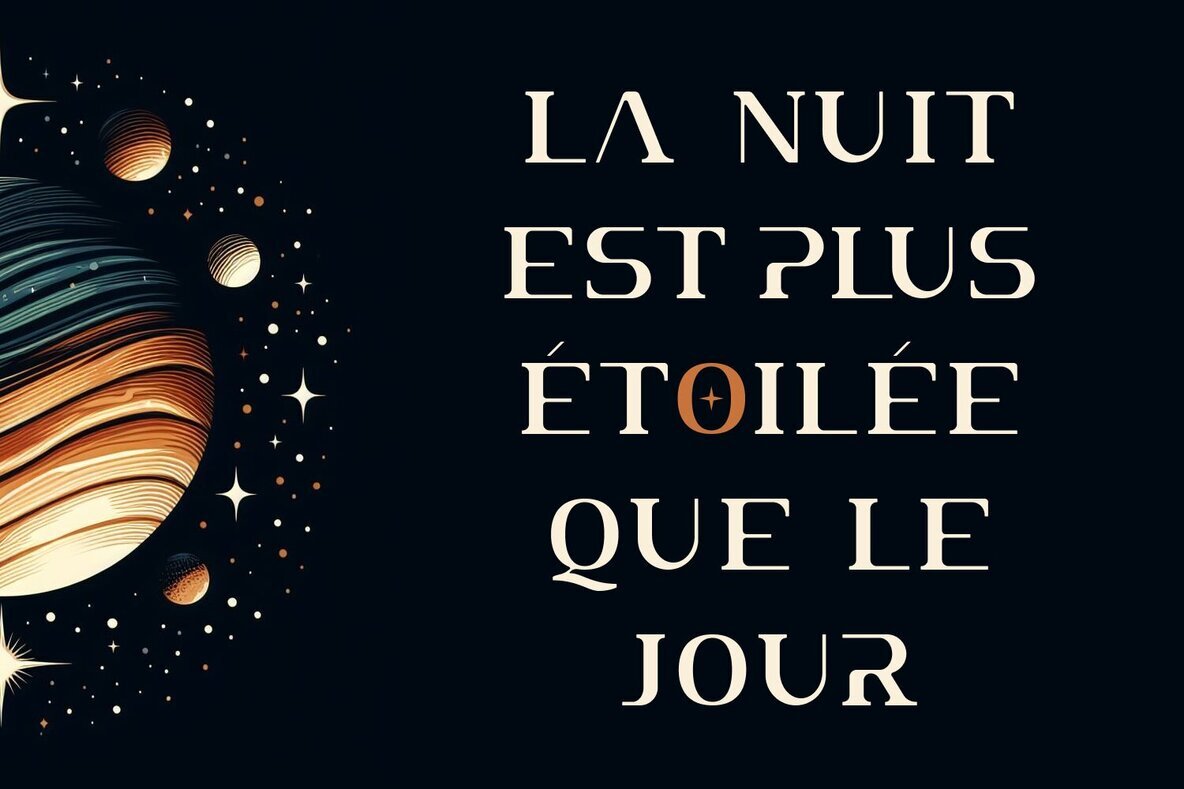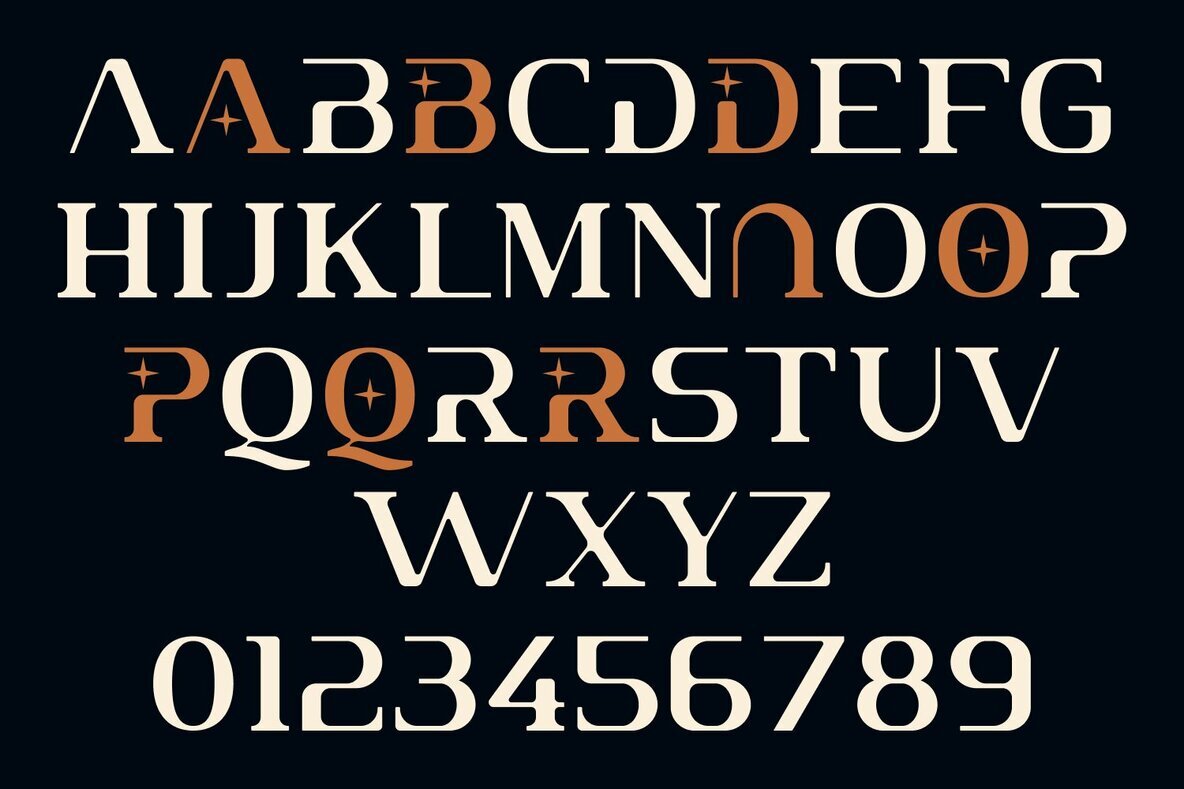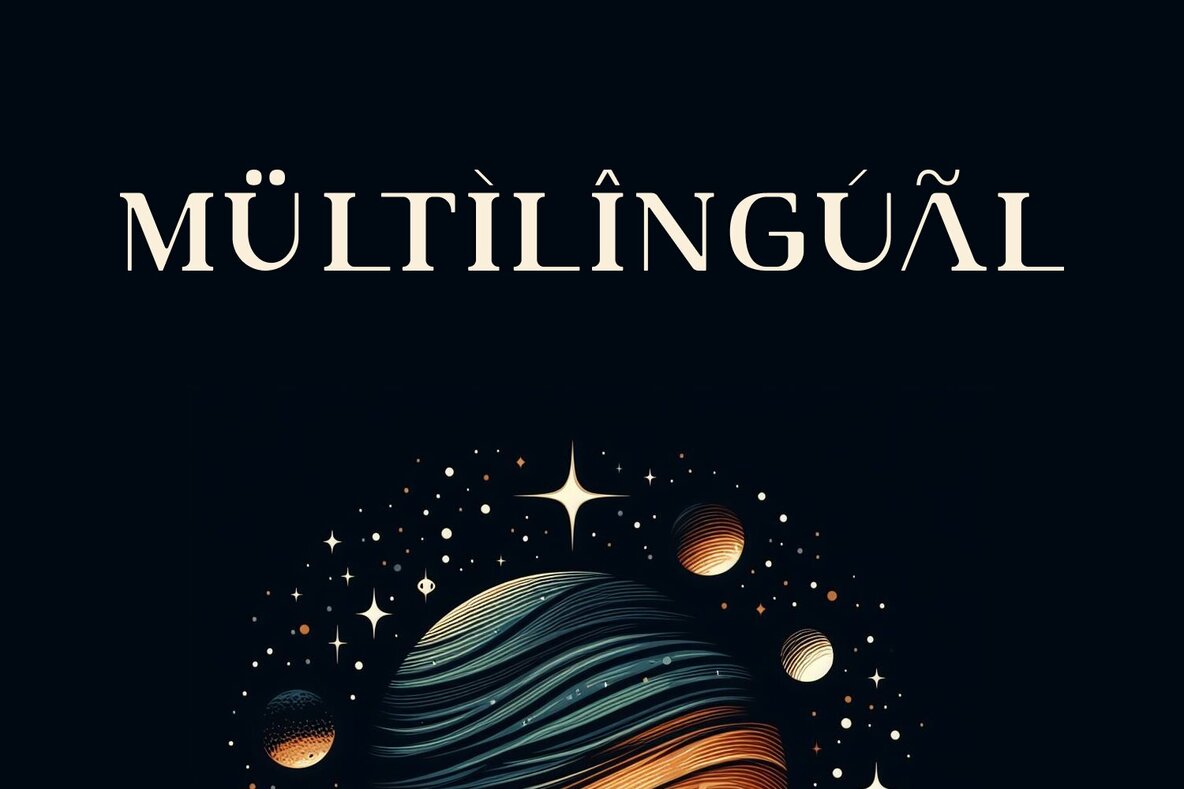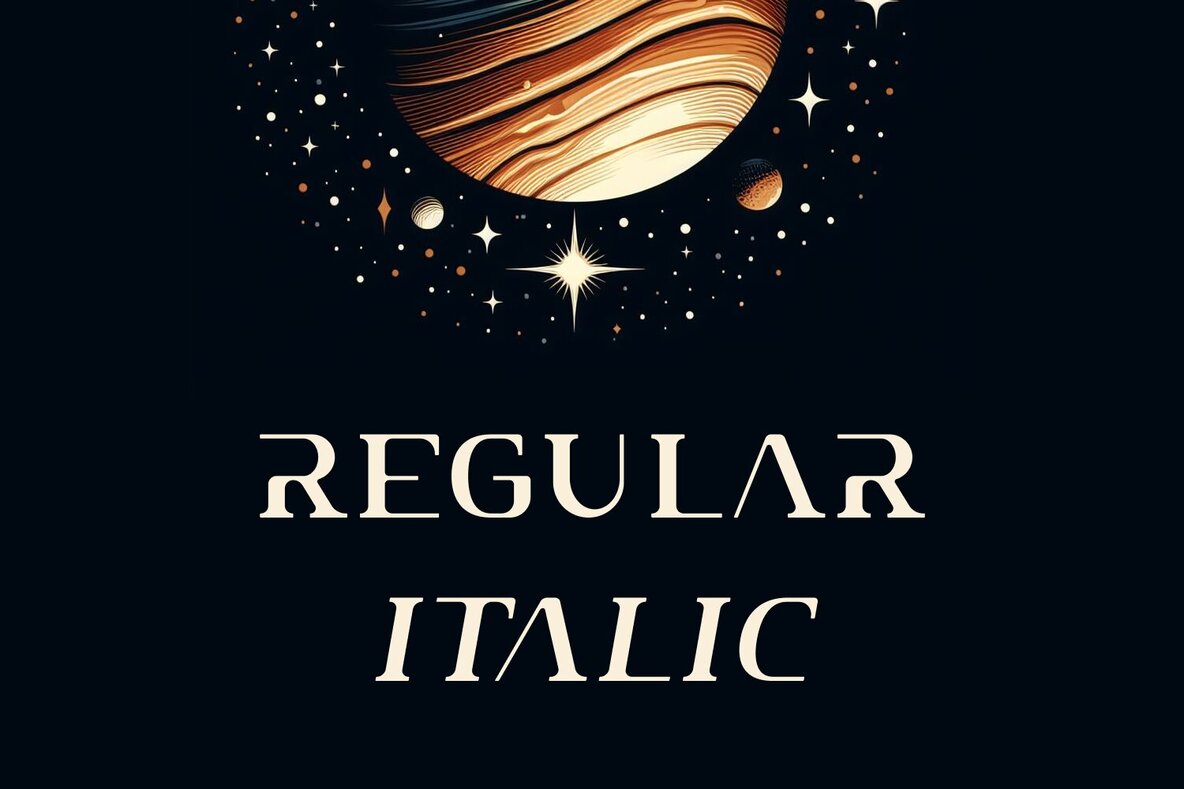
Asterixa is a modern serif font designed for display use. This uppercase font exudes an elegant and powerful aesthetic with a classic touch refined for the contemporary era. With Asterixa, you'll discover a distinctive and graceful presence, making it the perfect choice for design projects that demand a blend of classic beauty and modern appeal.